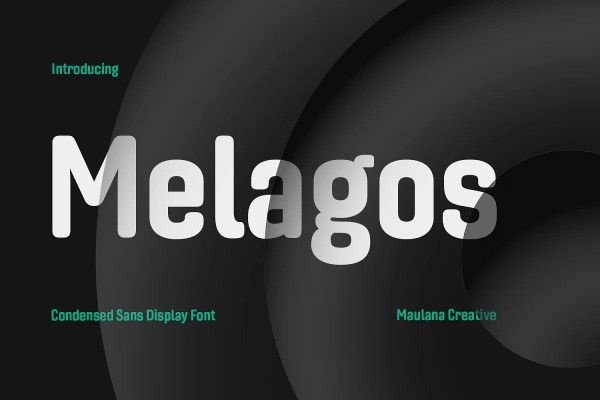
Melagos Font
Melagos Font is a condensed sans Display font. Bold stroke, fun character with a bit of ligatures and alternates. To give you an extra creative work. Melagos font support multilingual more than 100+ language. This font is good for logo design, Social media, Movie Titles, Books Titles, a short text even a long text letter and good for your secondary text font with script or serif. Make a stunning work with Melagos font.